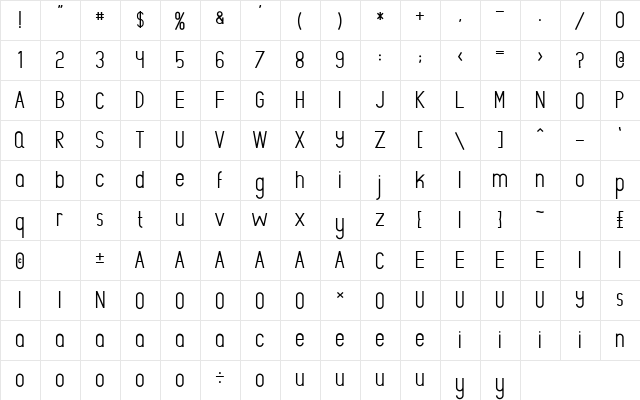
Rowland Light
| Foundry | Edric Studio |
| Designer | Muhammad Deyan S & Muhamad Nouval fr |
Design Context for Rowland Typeface
Rowland offers clean, dependable letterforms without strong stylistic allegiance, making it a practical choice for designers who need flexibility. The delicate stroke weight brings airiness and refinement to layouts.